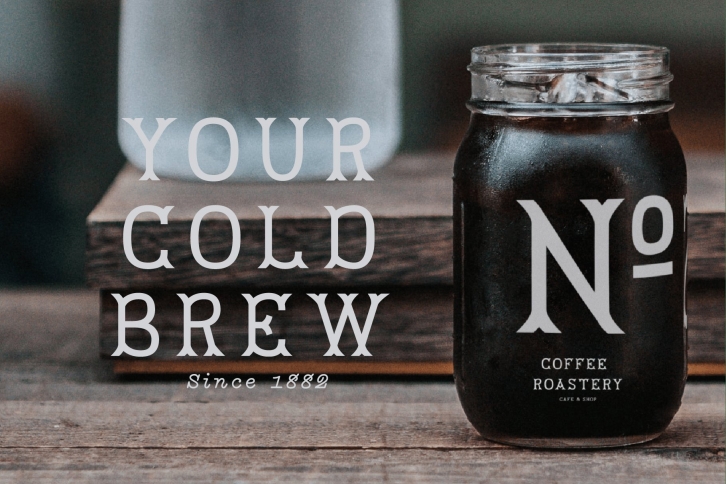
Do you love vintage fonts? Mr. Albrecht was created for branding, stationery, blogs and branding. It pairs perfect with some of my other vintage fonts like Calm Sage. The font has some of the basic Latin caracters and comes with accents and it's own set of glyphs, that can be accessed via the glyphs panel in your favorite software.
This font comes with a range of different glyphs and special characters in Latin languages. Alternative characters can be accessed via the glyphs panel in your favorite software or with OpenType features turned on.